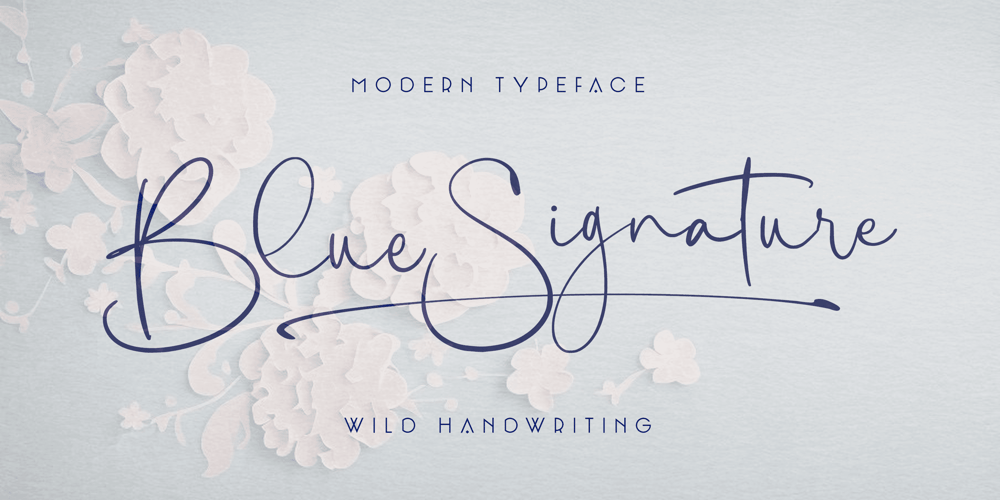
Blue Signature
Blue Signature font
Blue Signature Font Family was designed by Måns Grebäck and published by Mans Greback. Blue Signature contains 4 styles and family package options. Blue Signature is a playful and expressive handwriting font that exudes a wild and untamed feel. Its looping, flowing strokes and elegant curves give it a unique and authentic look that is perfect for adding a personal touch to your designs.Designed with a focus on creating a signature-like quality, Blue Signature is perfect for anything from logos and branding to social media posts and invitations. Its cute and expressive style is sure to make a lasting impression on your audience.Blue Signature comes in four styles: Regular, Italic, Bold, and Bold Italic, allowing for versatility and creativity in your designs. Use underscore _ anywhere in a word to make a swash. Example: White_signUse multiple underscores to make different swashes. Example: Love____lettersUse * to make flowers!Pink*RosesSpring***PartyThe font is built with advanced OpenType functionality and has a guaranteed top-notch quality, containing stylistic and contextual alternates, ligatures and more features; all to give you full control and customizability. It has extensive lingual support, covering all Latin-based languages, from Northern Europe to South Africa, from America to South-East Asia. It contains all characters and symbols you’ll ever need, including all punctuation and numbers.